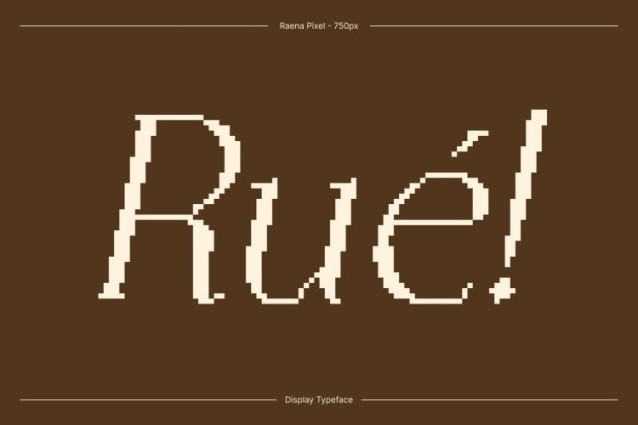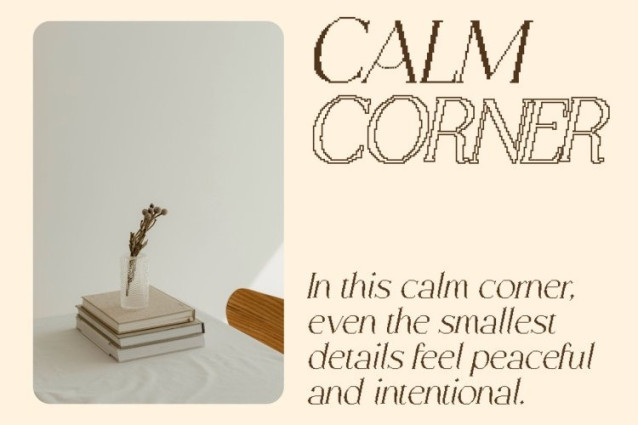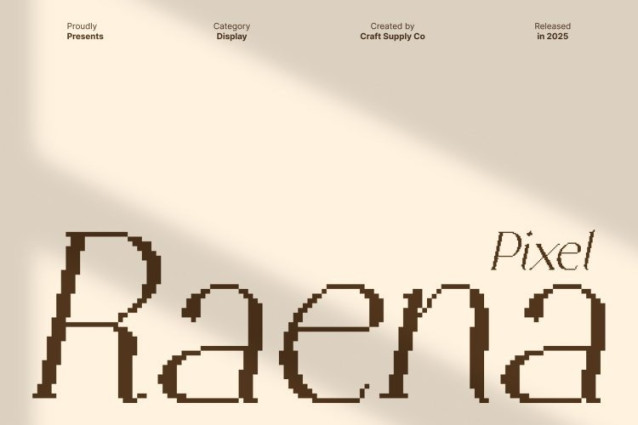
Raena Pixel Font
Raena Pixel Font This is an elegant serif font that combines refined curves with a clean, high-end aesthetic. Designed for projects that demand sophistication and visual grace, this typeface brings a sense of luxury to editorial layouts, branding, and premium design work. Each character exudes professionalism and style, making it perfect for projects where elegance is essential.
Refined Curves for a Polished, High-End Look
The font’s carefully crafted curves create a smooth, balanced, and timeless appearance. Its clean structure ensures readability while maintaining a refined, luxurious feel. Raena Pixel is ideal for designers seeking a serif that communicates both sophistication and modern elegance, whether in print or digital applications.
Pixelated Texture for Unique Digital Character
Enhanced with a pixelated effect, this font introduces a modern, digital edge to its classic serif forms. The pixel texture adds uniqueness and visual interest, bridging traditional elegance with contemporary digital styling. This combination makes the font stand out in luxury branding, editorial projects, and modern design contexts.
Perfect for Luxury Design, Editorials, and Branding
This font excels across a range of high-end applications. From sophisticated editorial layouts and premium packaging to stylish branding and digital campaigns, its elegant serifs and pixel-infused character make it a versatile choice. This font delivers a polished, luxurious, and distinctive appearance that elevates any project with style and creativity.